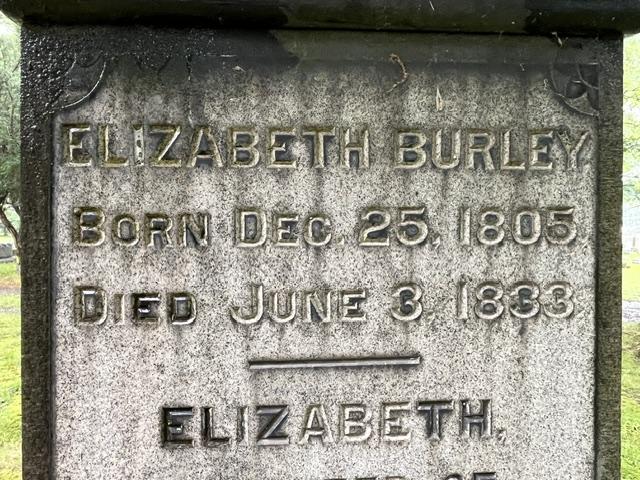
What font is this please?
Hello, this is all hand-drawn and hand-carved lettering. There were no “fonts” (alphabets made available as physical letter sets used for reproducing consistent letters) used in the memorial industry until sometime around 1910-1915, and even then they were very rare until the Spacerite Company began producing their metal alphabets in 1925. Prior to this time almost all lettering you see on memorials would have been hand drawn.